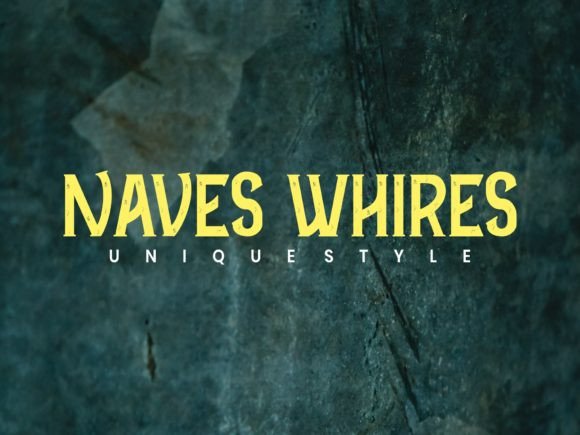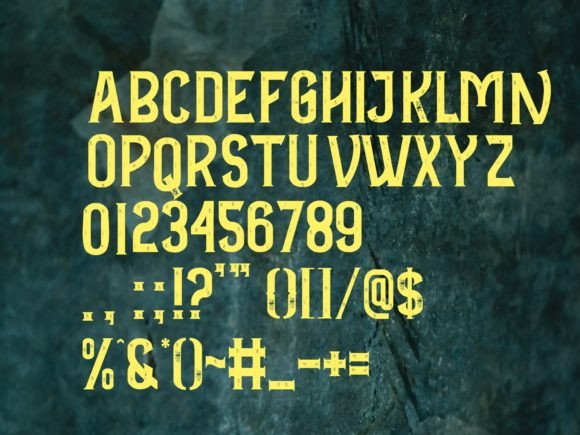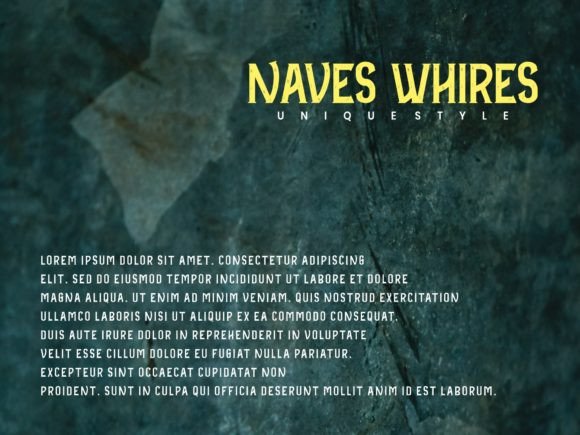
Naves Whires Font
NAVES WHIRES FONT SPECIMEN
Naves Whires is a unique, stylish slab serif font with a subtle vintage touch. Use it to create unique t-shirt designs, labels, posters, headlines, watermarks or anything that needs a sleek, yet exquisite feel.